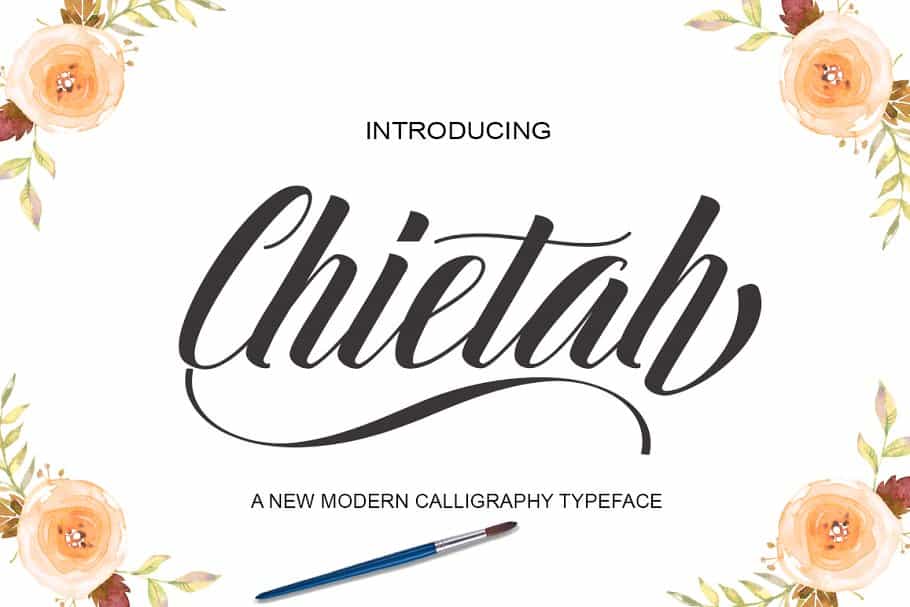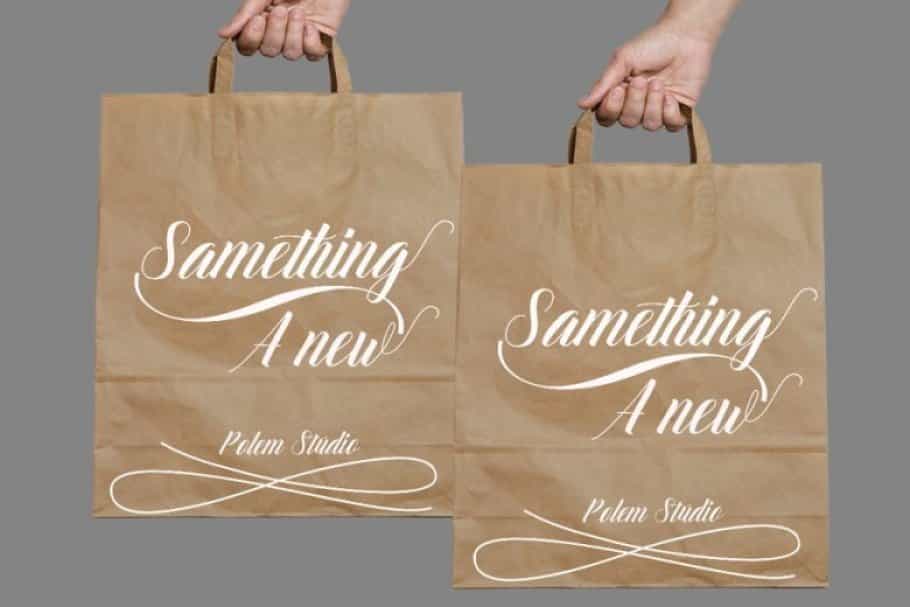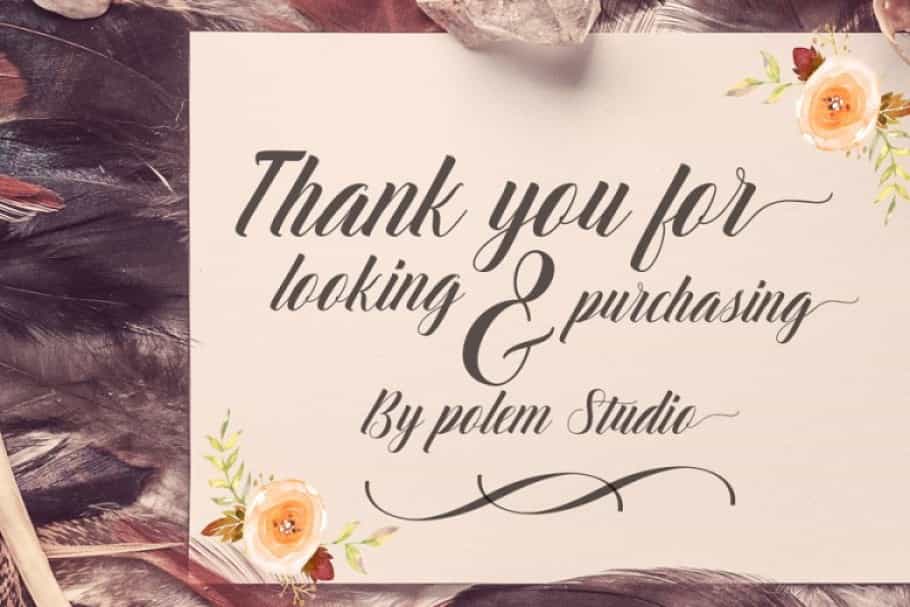
Introducing Chietah Font. Chietah is a modern calligraphy font which has the varying baseline, the smooth line and also it looks classic and elegant. It can be applied for different purposes. For instance, headings, signature, logos, wedding invitation t-shirt letterhead signage label news posters badges etc. Chietah Script has 404 glyphs. this includes the first and last letters, alternates, ligatures and the support of multiple languages.